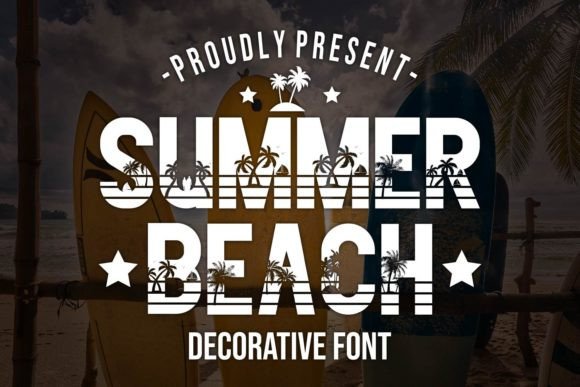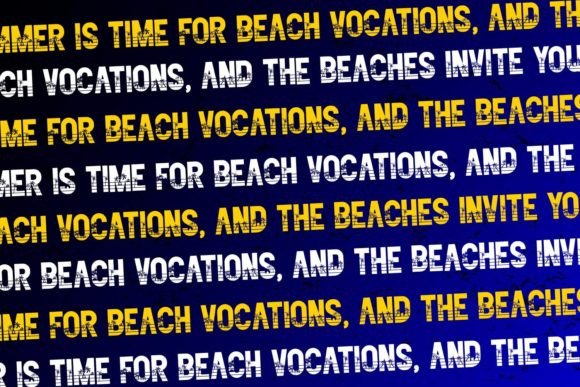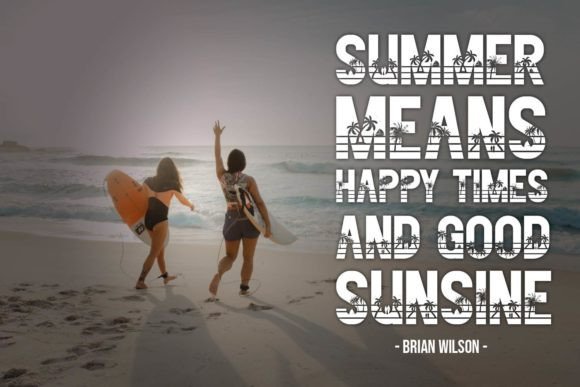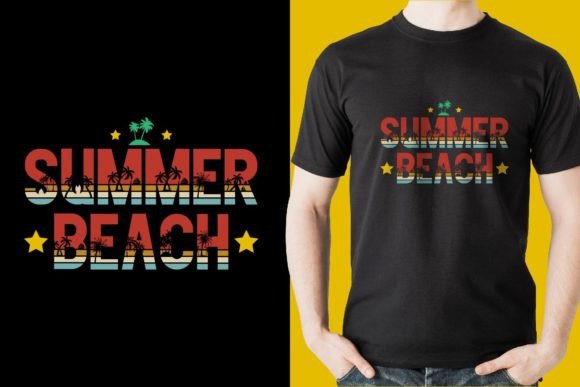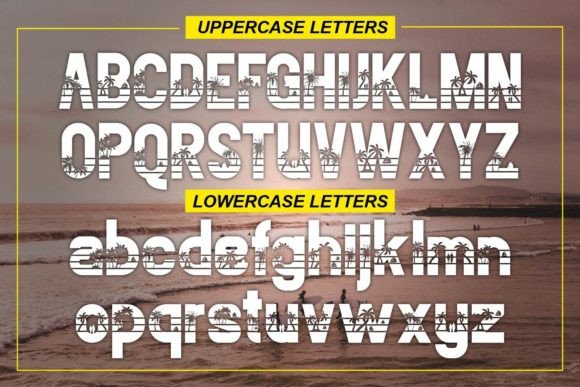
Summer Beach Font
Summer Beach is a unique and playful font that captures the essence of a fun and carefree day at the beach. Each letter of the font is creatively designed to feature a charming palm tree motif, adding a tropical and beachy vibe to any project. The font is perfect for creating eye-catching designs for summer events, beach parties, vacation posters, and more. The playful and upbeat design of Summer Beach makes it a great choice for anything from product packaging to social media posts. If you’re looking to add a touch of summer fun to your designs, look no further than Summer Beach.